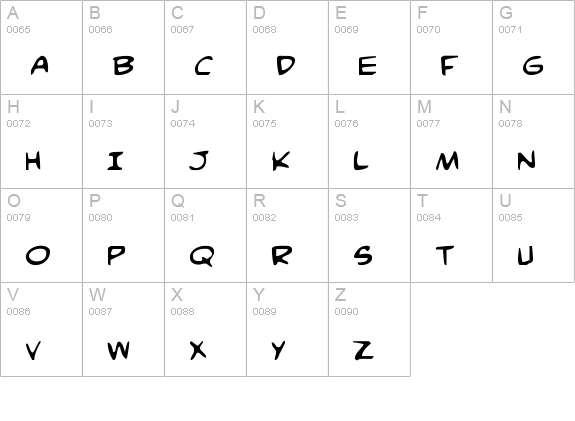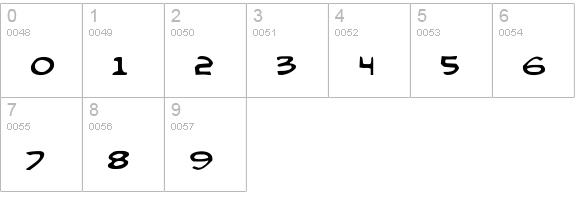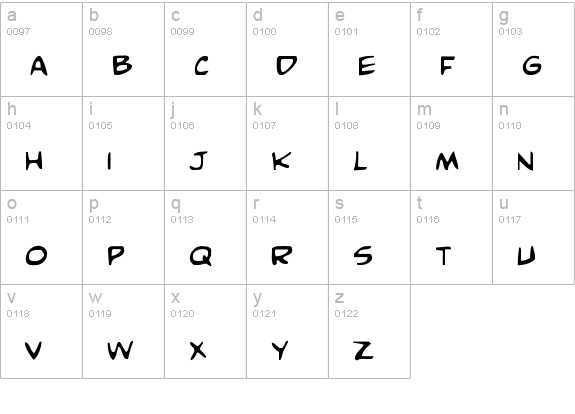
Comic Book Commando Font Details
Comic Book Commando is a comfortable, highly readable variant in the Comic typeface family \xE2\x80\x94 well suited to long-form body text, articles, and editorial content.
Introducing Comic Book Commando font, a bold and dynamic typeface that exudes strength and power. Perfect for creating eye-catching titles and headlines, this font captures the essence of classic comic book art with its sharp edges and commanding presence. Comic Book Commando font is available for free download at FontsMarket.com, making it easily accessible for all your design projects. Whether you're looking to add a touch of action and adventure to your designs or want to make a bold statement, this font is sure to command attention and leave a lasting impression. Let Comic Book Commando font be your trusty sidekick in the world of typography, ready to take on any design challenge with style and flair.